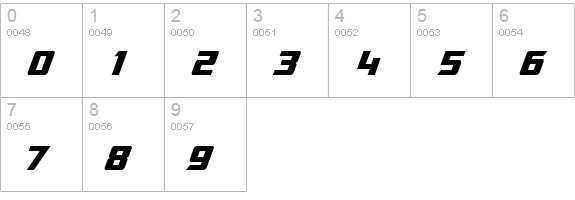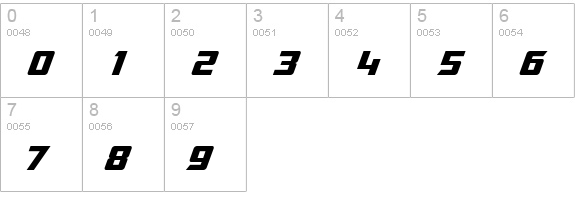
SF TransRobotics Italic Font Details
SF TransRobotics Italic is a distinctive, italic variant in the SF typeface family \xE2\x80\x94 well suited to design and typography projects.
SF TransRobotics Italic font is a sleek and futuristic typeface that is perfect for adding a touch of modernity to your designs. Its bold and italicized letterforms exude a sense of dynamism and technological advancement, making it the ideal choice for projects related to science fiction, robotics, and futuristic themes. The distinctive design of SF TransRobotics Italic font captures the essence of the cybernetic world, with its sharp angles and geometric shapes. Its edgy and avant-garde style adds a unique flair to any design, making it stand out from the crowd. With its versatile nature, SF TransRobotics Italic font can be used across a wide range of applications, including posters, logos, video game graphics, book covers, and more. It brings a sense of excitement and innovation to your designs, leaving a lasting impression on viewers. One of the best aspects of SF TransRobotics Italic font is that it is freely available to download at FontsMarket.com. This means that you can easily access and use this fantastic font in your projects without any cost. Whether you are a professional designer or a hobbyist, this free font allows you to explore and experiment with its futuristic aesthetics, unleashing your creativity without any restraints. In conclusion, SF TransRobotics Italic font is a stunning typeface that combines the captivating elements of science fiction and robotics. Its sleek and futuristic design makes it a go-to choice for projects seeking a modern and cutting-edge look. And the best part? It's free! Download SF TransRobotics Italic font today from FontsMarket.com and elevate your designs to the next level.